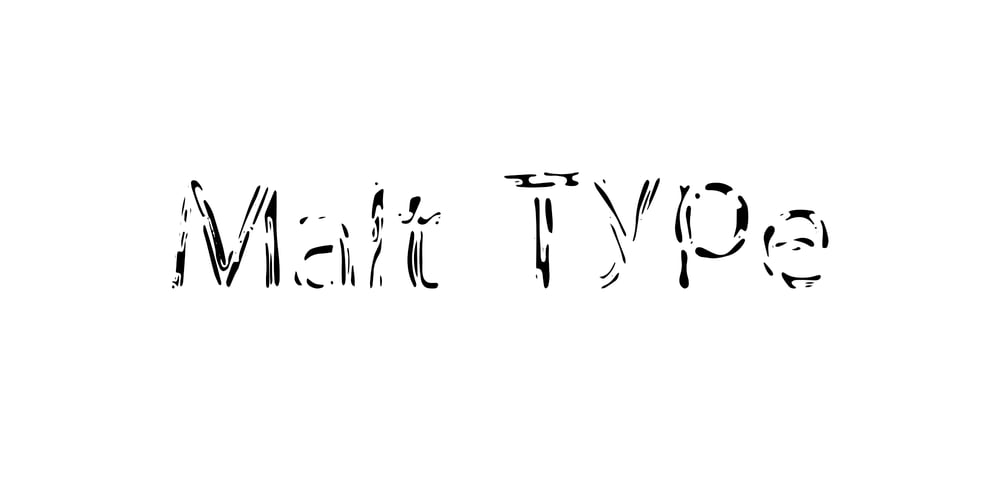
Malt type
Malt type font
Malt type Font Family was designed by Jeremy Gill-Praba and published by Jointype. Malt type contains 3 styles and family package options. This type face is based on the printed formate of type and the tread from shoes and bikes when they spray up mud. It is also inspired by the liquidness of water and the viscosity of liquid.